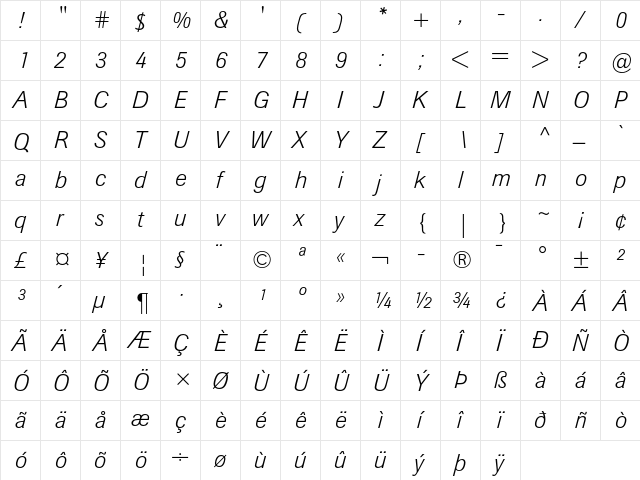
Berthold Imago Light Italic Font Preview
Design Context for Berthold Imago Typeface
Berthold Imago takes a measured approach to typography — its balanced proportions and neutral character make it a reliable workhorse for both digital and print work. Its italic angle brings a sense of urgency and motion to the letterforms. The delicate stroke weight brings airiness and refinement to layouts.
Pro Tip: Try Berthold Imago for annotation and caption copy alongside an upright companion — the contrast in angle creates a dynamic but ordered typographic system.